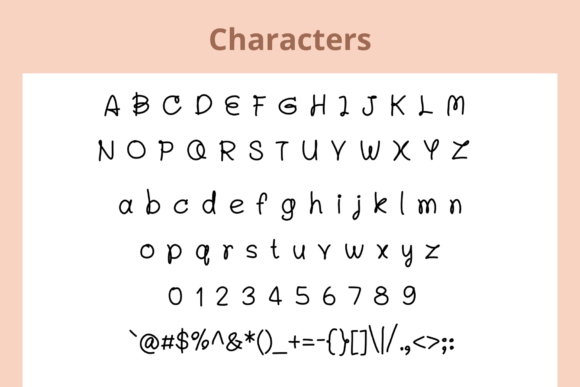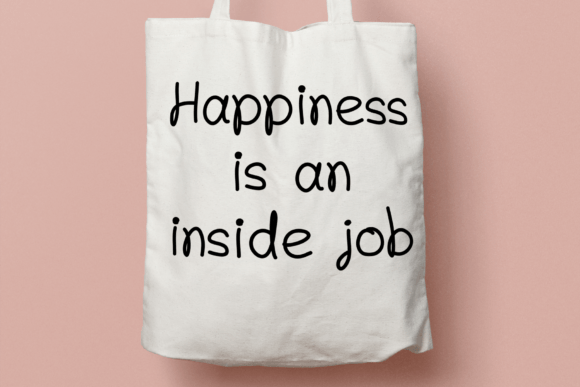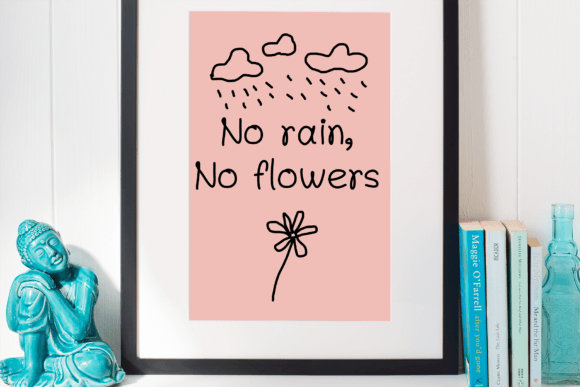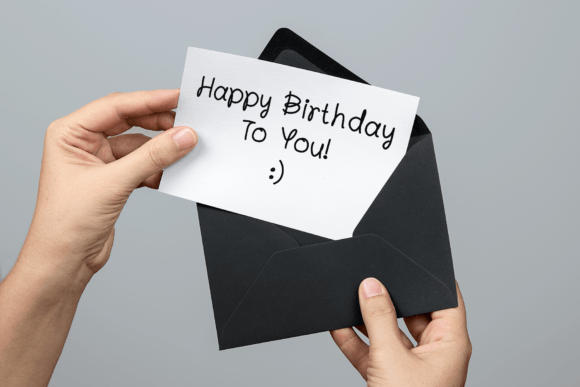
About Pimmy Planet Inter Font
“Pimmy Planet Inter” is a simple and cute handwritten font that adds a touch of charm to a variety of design projects. Whether you’re using it for crafts, digital design, presentations, or creating greeting cards, this font is versatile and has the potential to become your favorite go-to choice for various occasions.
The font’s charm lies in its ability to convey a sense of playfulness and friendliness. Its handwritten style exudes warmth and approachability, making it an ideal choice for projects where you want to create a visually engaging and inviting impression. “Pimmy Planet Inter” allows you to infuse your designs with a touch of cuteness and creativity.
Whether you’re working on personal or professional projects, “Pimmy Planet Inter” provides the creative freedom to make your designs stand out. Its simplicity and handwritten aesthetic make it adaptable to different themes and design aesthetics, ensuring that it can complement a wide range of applications.
In summary, “Pimmy Planet Inter” is a versatile and charming font that adds playfulness and warmth to your creative projects. Its handwritten style is suitable for various occasions and design needs, making it a valuable addition to your font collection. With “Pimmy Planet Inter,” your designs will have a friendly and approachable appeal that leaves a lasting impression.